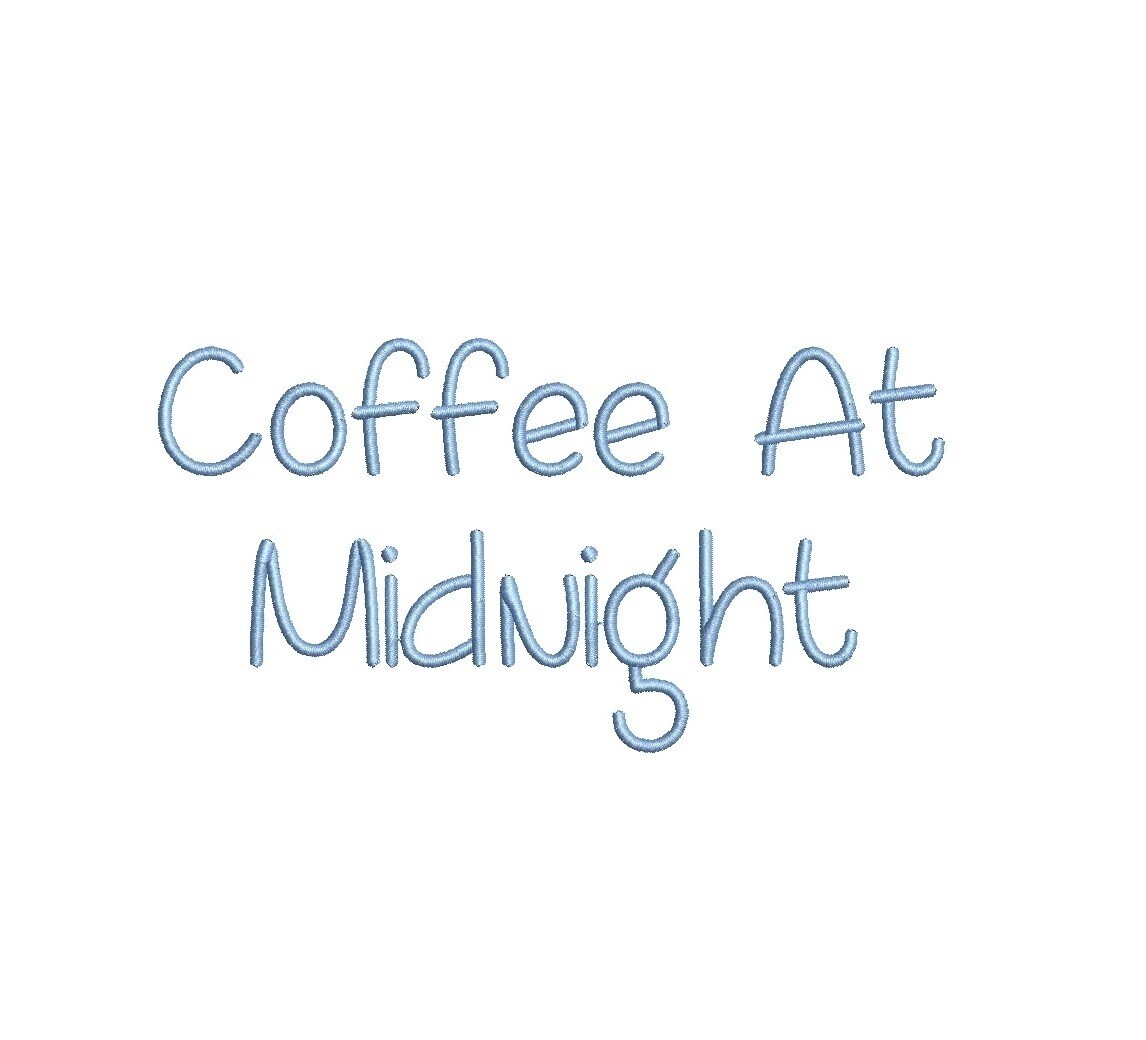
Discover the allure of Coffee At Midnight Regular ESA font, a perfect choice for your design adventures. This enchanting typeface ensures seamless compatibility with Wilcom Studio e4.5.6 and Hatch 3 versions and above. Crafted with meticulous precision, its elegant letterforms and charming elements infuse your projects with a cozy allure. Elevate your designs with Coffee At Midnight Regular ESA's versatility, ideal for coffee shop branding, posters, quotes, and more. Let your imagination run wild as you blend warmth and creativity with this font, tailored for Wilcom Studio e4.5.6 and Hatch 3 versions and beyond. Savor the essence of creativity with Coffee At Midnight ESA font.